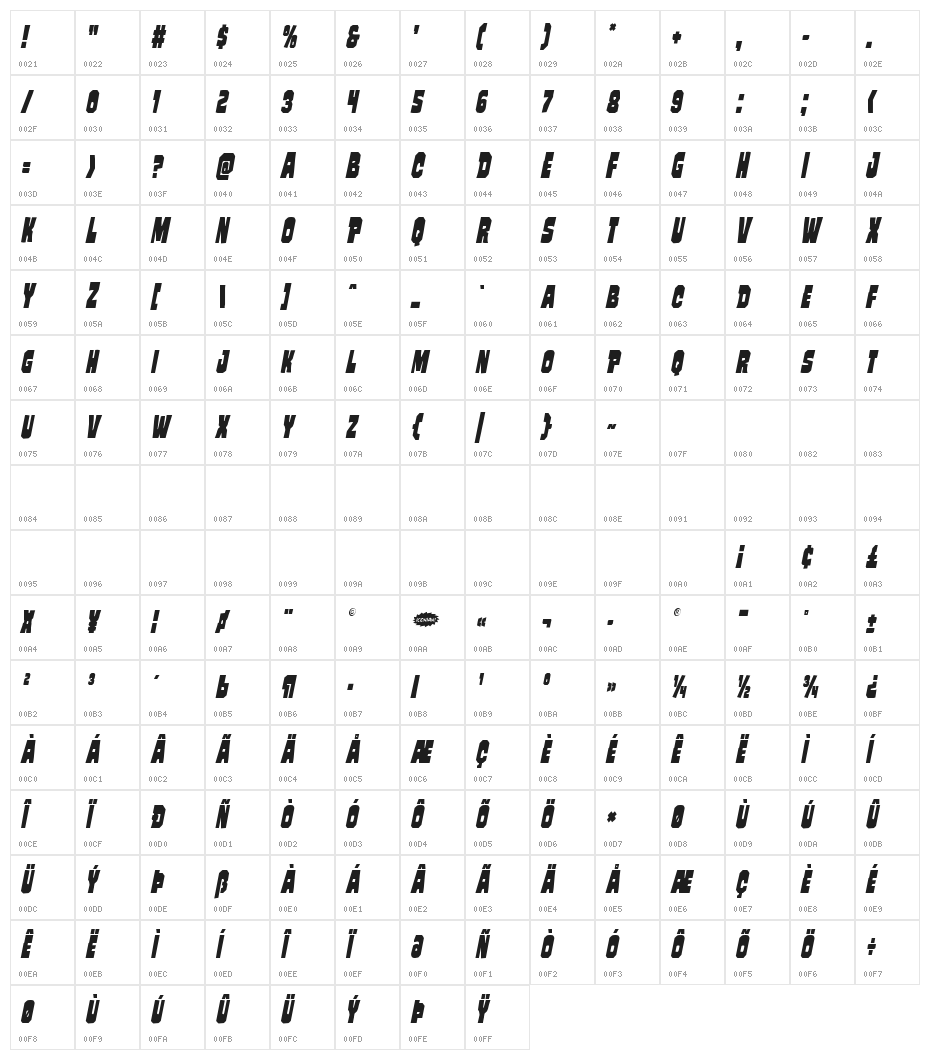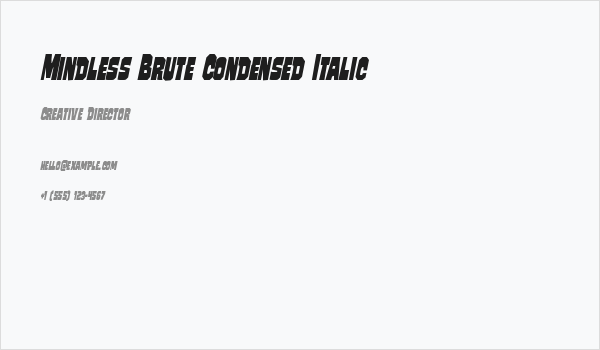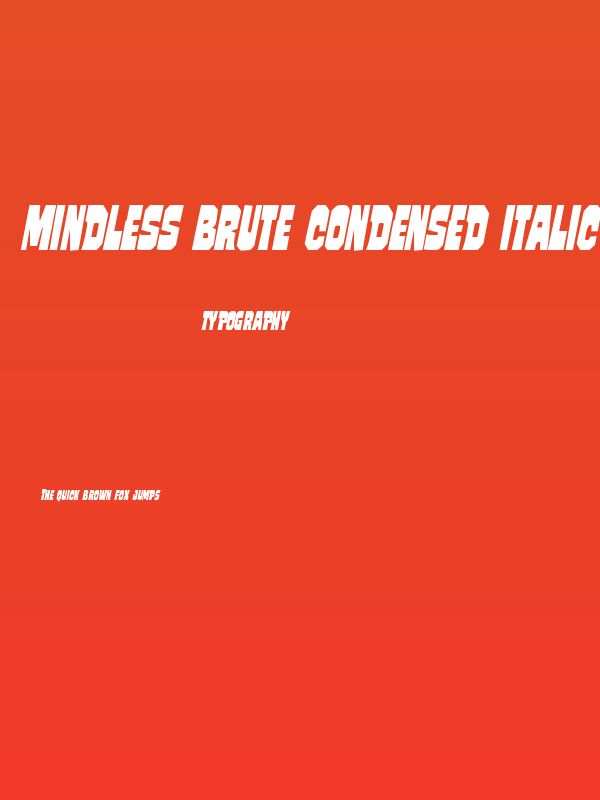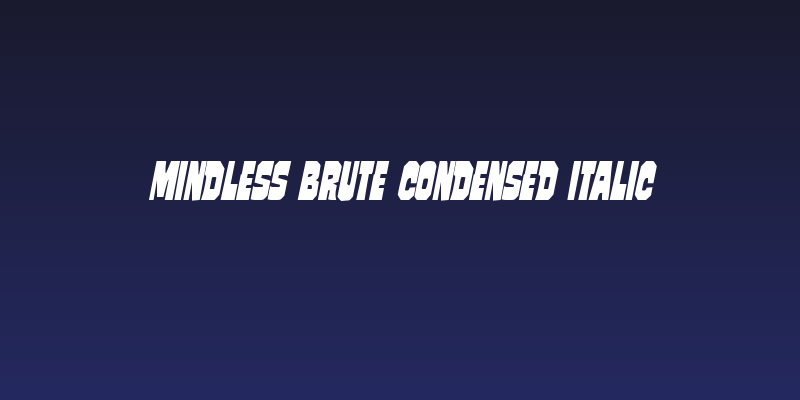
Mindless Brute Condensed Italic Font
Mindless Brute Condensed Italic Description
This font features a bold and dynamic design with a strong presence. The characters are condensed and italicized, giving them a forward-leaning, energetic appearance. The strokes are thick and consistent, creating a sense of power and impact. The angular and geometric shapes of the letters contribute to a modern and assertive style, making it suitable for attention-grabbing headlines and designs. The numbers and special characters maintain the same bold and condensed style, ensuring uniformity across all elements.
| Proposed Projects | Ideal for sports branding, action movie posters, dynamic advertisements, and any project requiring a strong visual impact. |